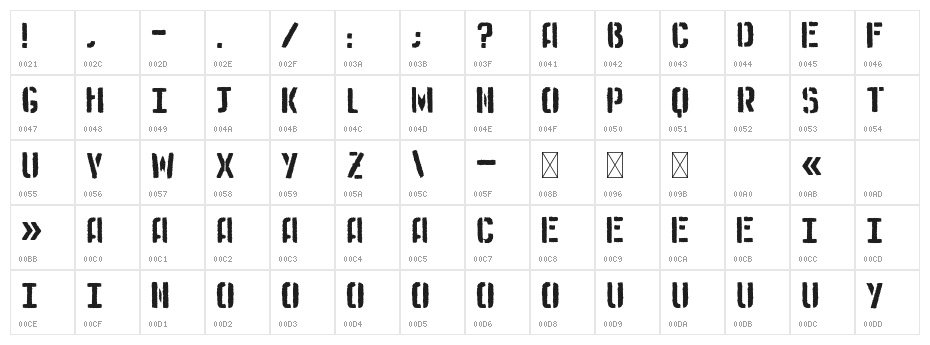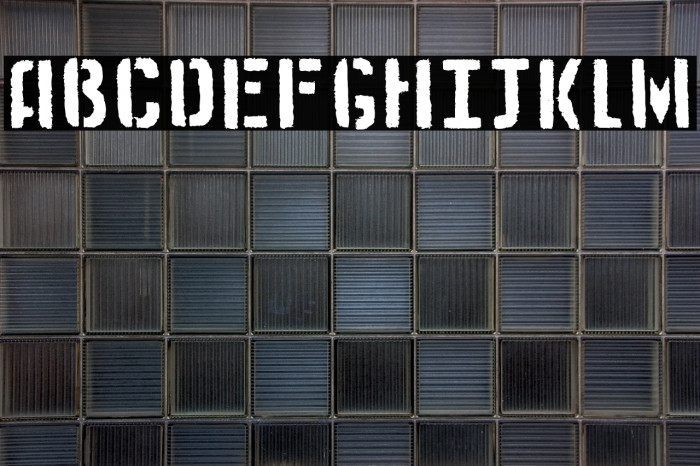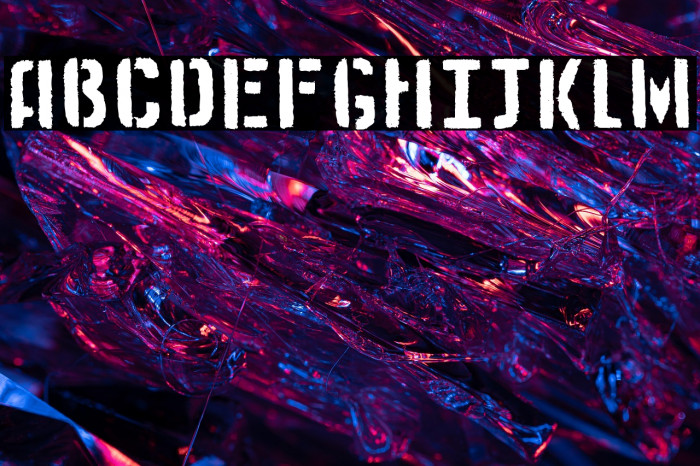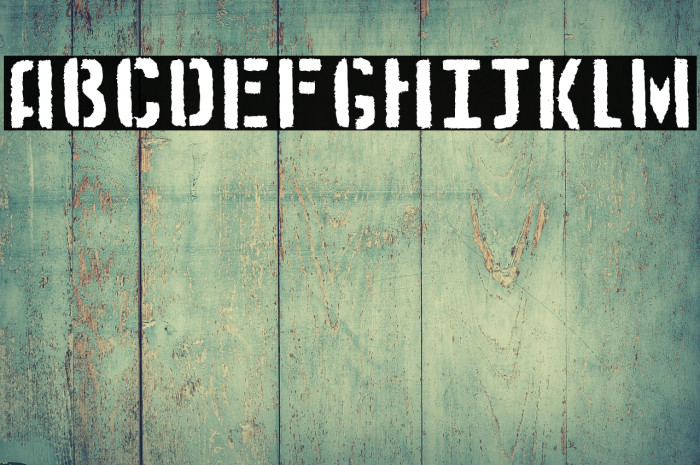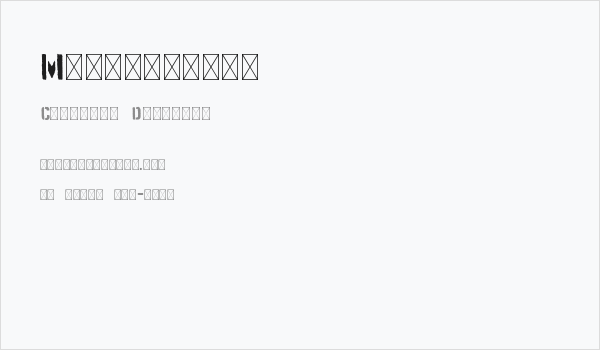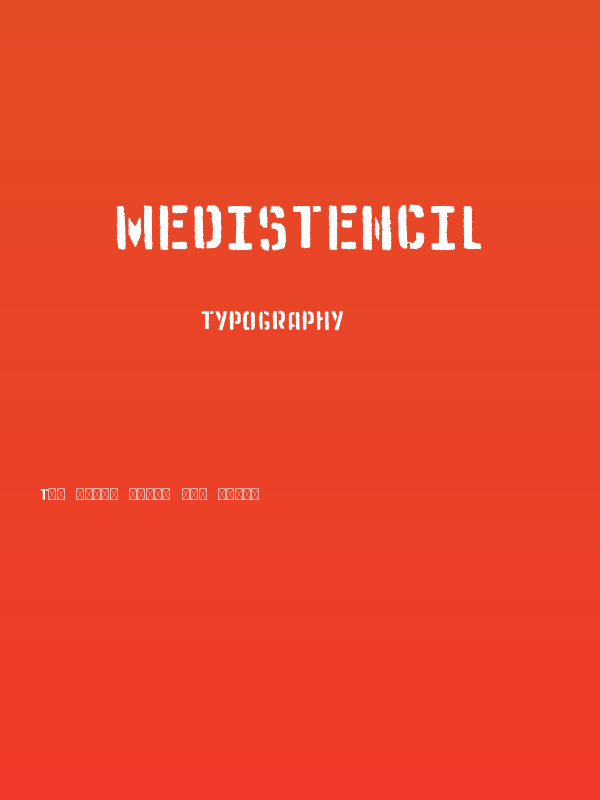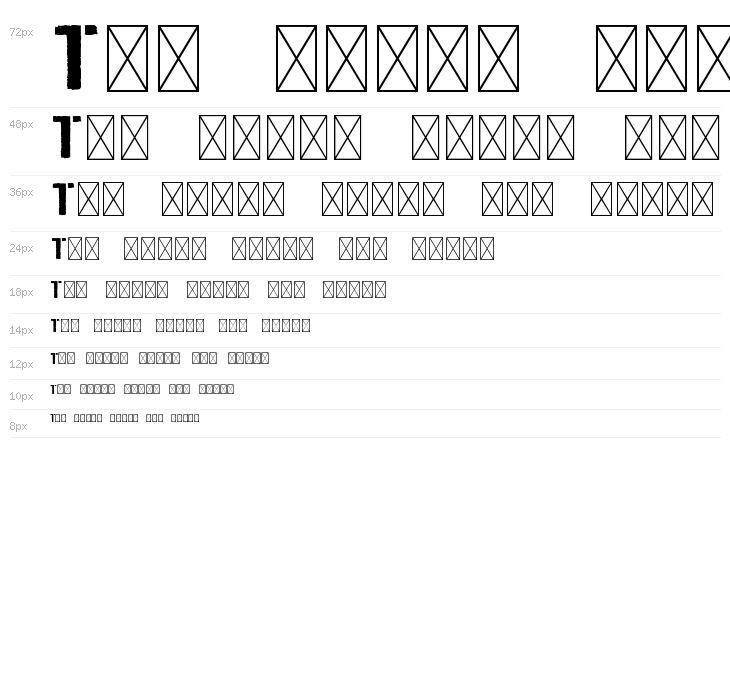
Medistencil Font
Medistencil Description
This font features a bold, stencil-like design with a rugged and industrial appearance. The characters are uppercase and exhibit a uniform thickness with distinct gaps that mimic the look of traditional stencils. The edges are slightly rough, adding to its utilitarian and military-inspired aesthetic. This style is reminiscent of markings used in packaging and labeling, providing a sense of strength and durability. The font's boldness ensures high visibility, making it suitable for impactful designs.
| Overall Style | Industrial, Military |
| Use Case | Headlines, Logos, Signage |
| Proposed Projects | Ideal for military-themed designs, industrial branding, packaging labels, and signage requiring a strong, bold statement. |